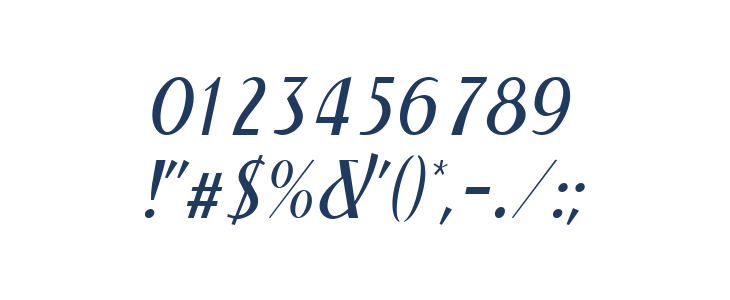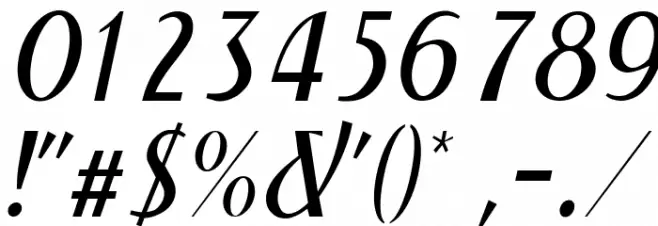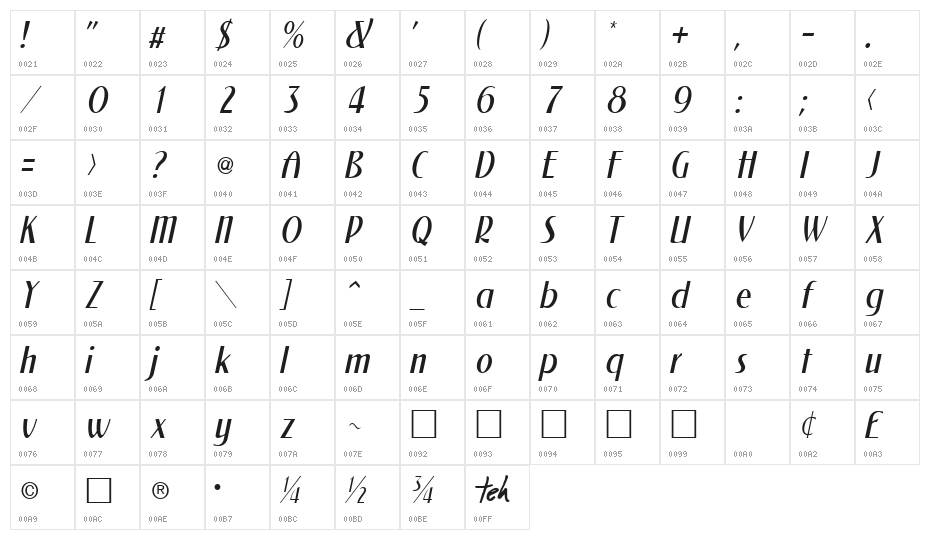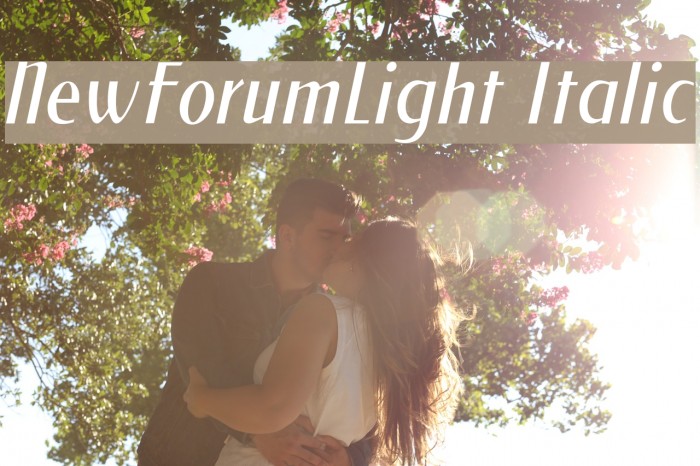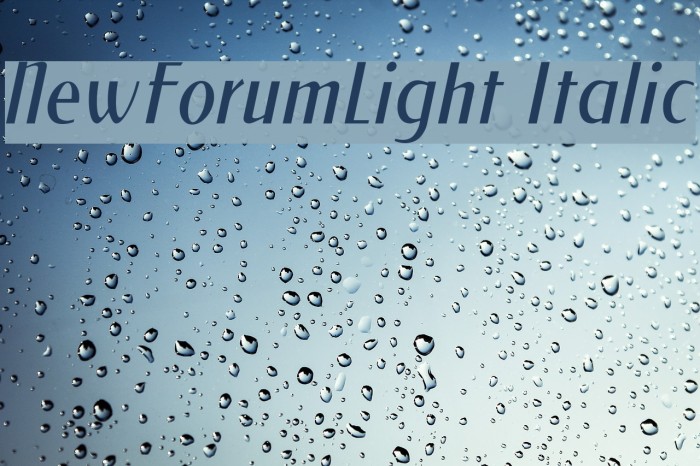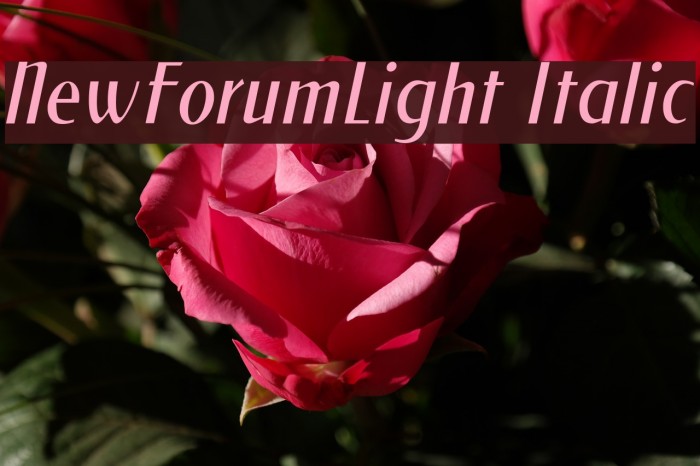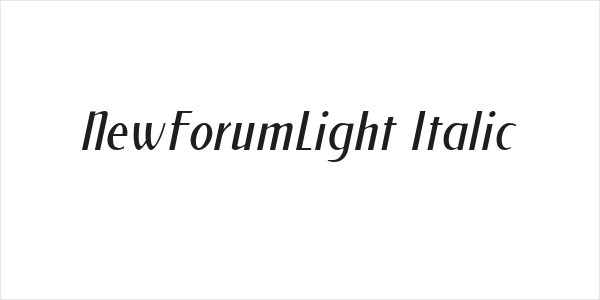
NewForumLight Italic Font
NewForumLight Italic Description
This font presents an elegant and sophisticated style with a distinct italic slant, giving it a dynamic and fluid appearance. The characters are crafted with a light weight, offering a refined and airy feel. The strokes are smooth and slightly curved, enhancing the graceful nature of the font. The uppercase letters are tall and slender, while the lowercase letters maintain a consistent flow, contributing to the overall harmony of the typeface. The numerals are well-proportioned, and the special characters are designed to complement the alphabetic characters seamlessly. This font is ideal for projects that require a touch of elegance and modernity.
| Proposed Projects | Ideal for wedding invitations, elegant branding, fashion magazines, and luxury product packaging. |